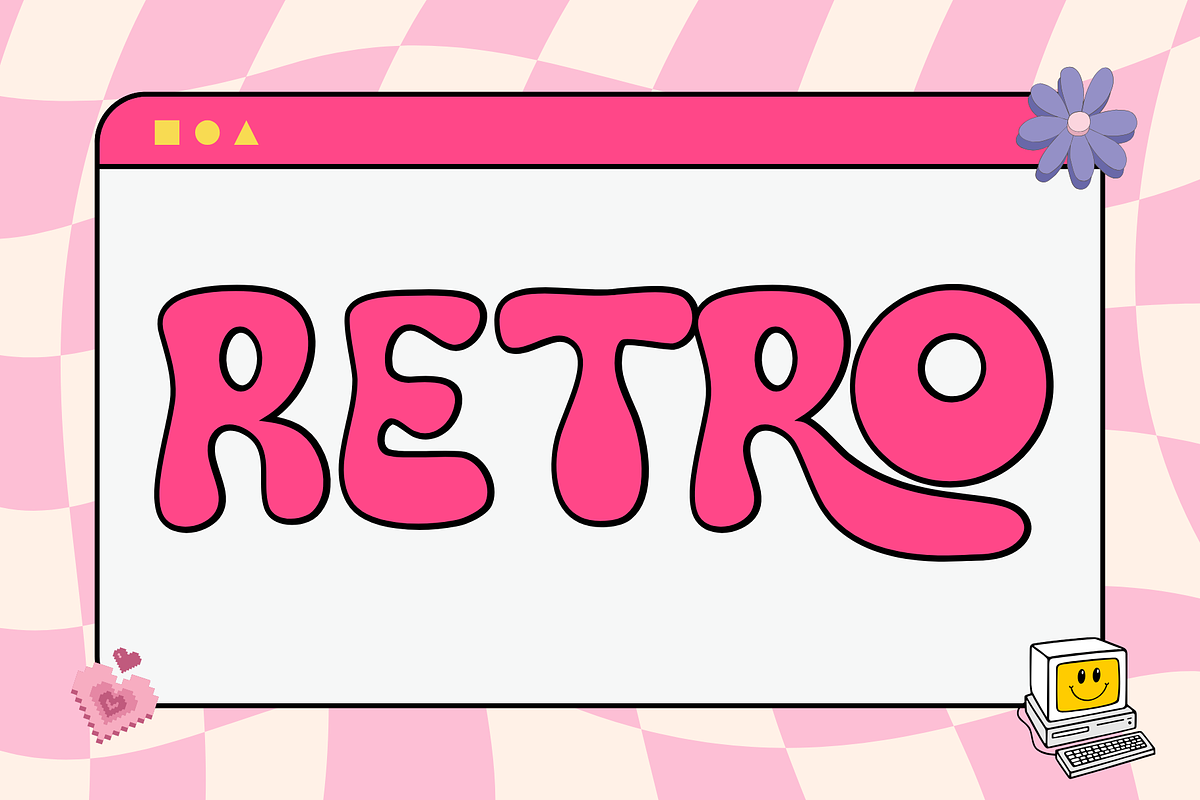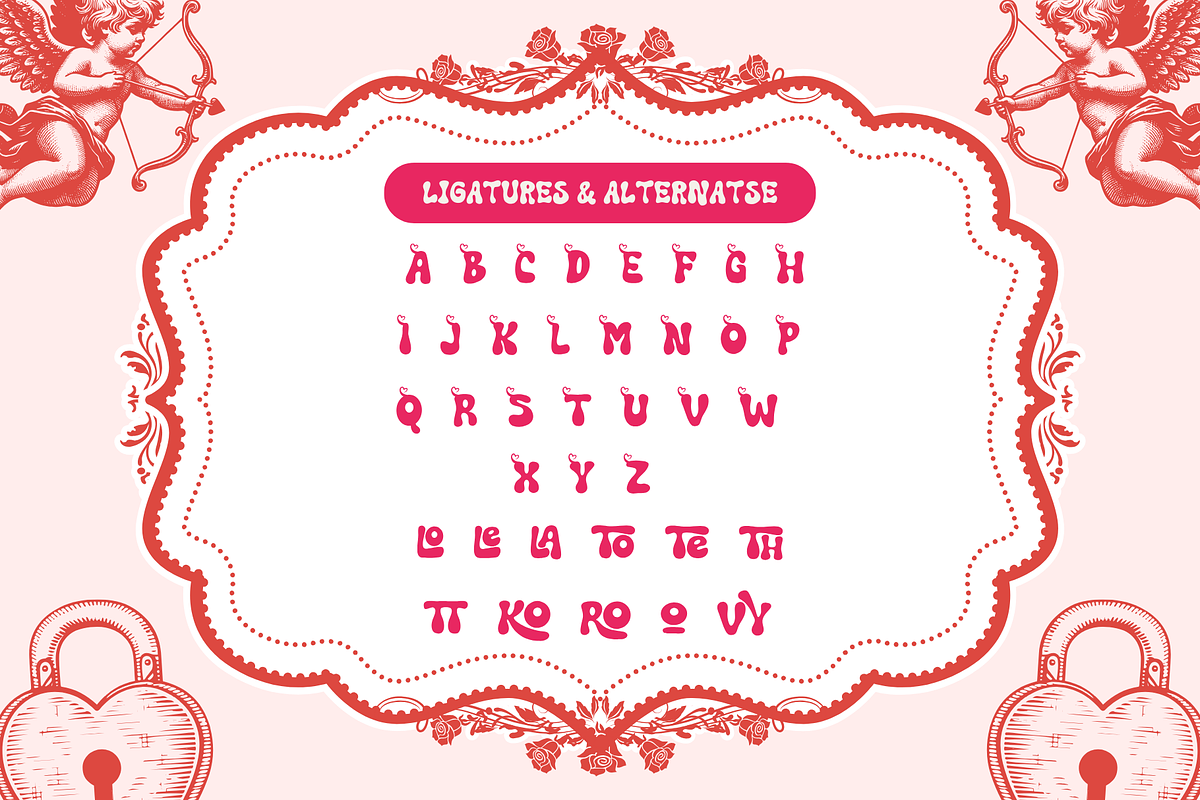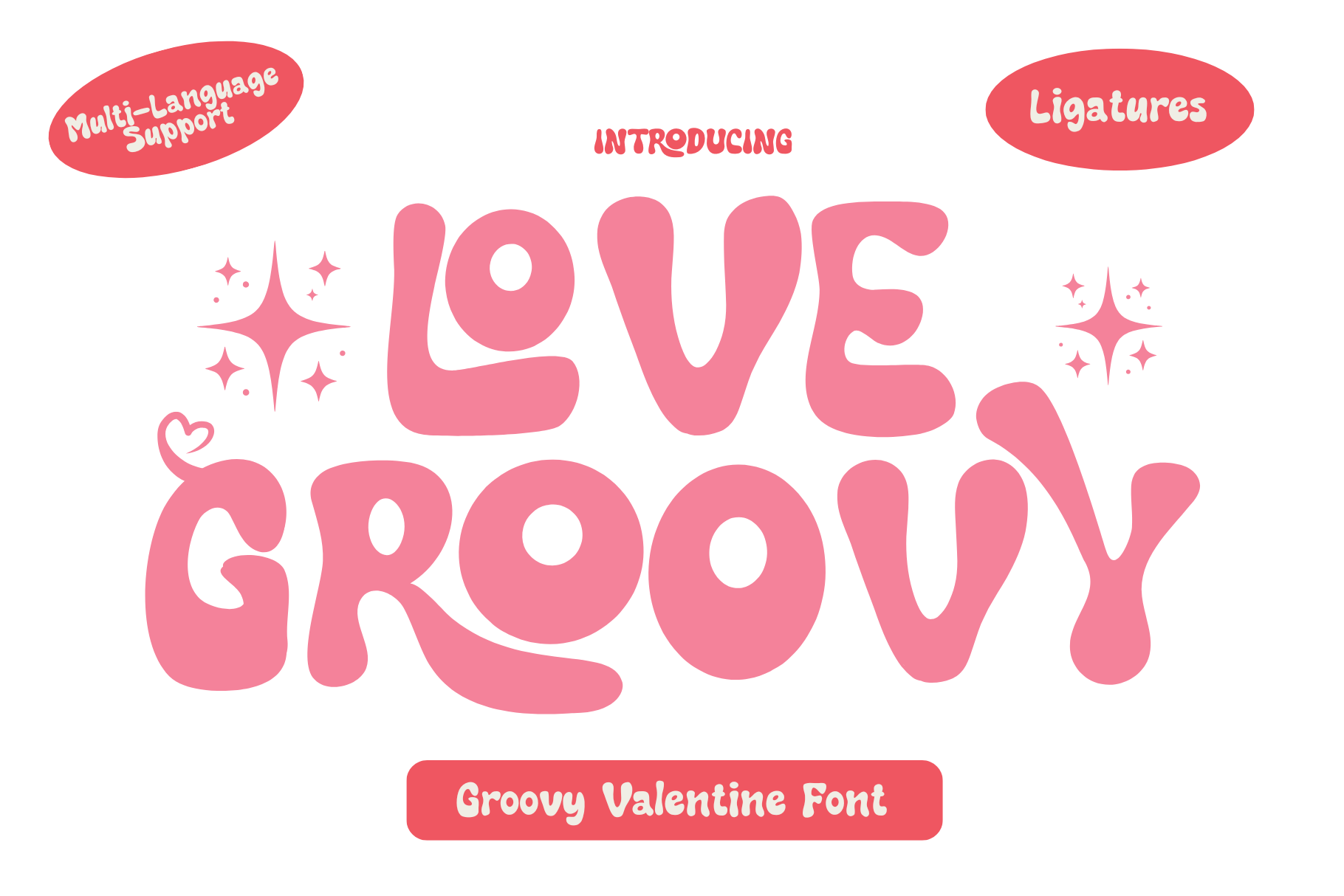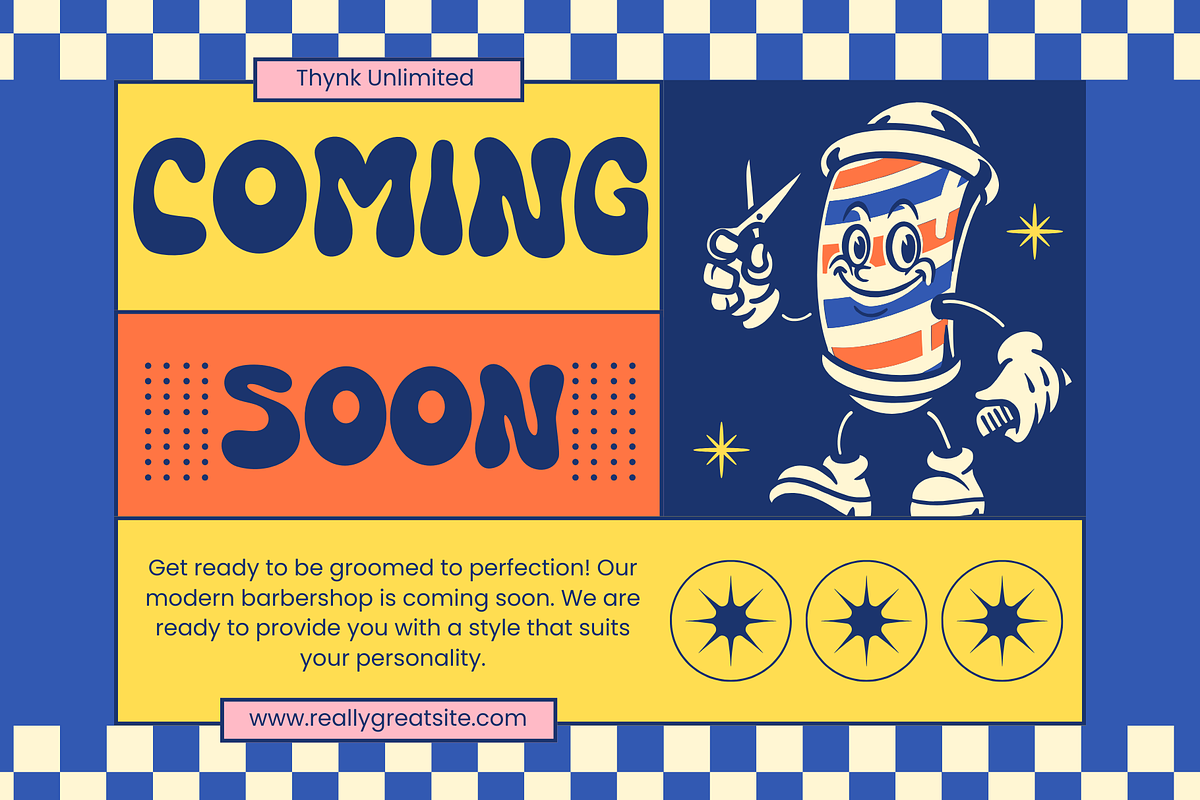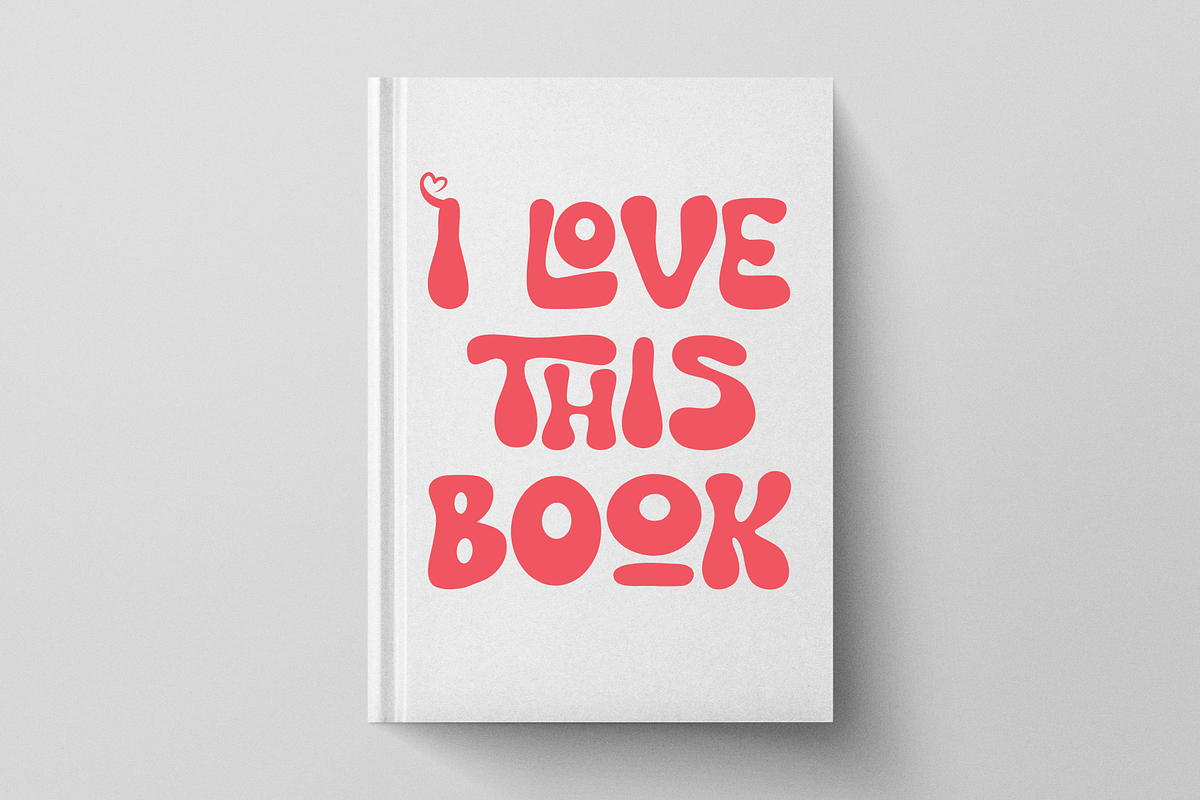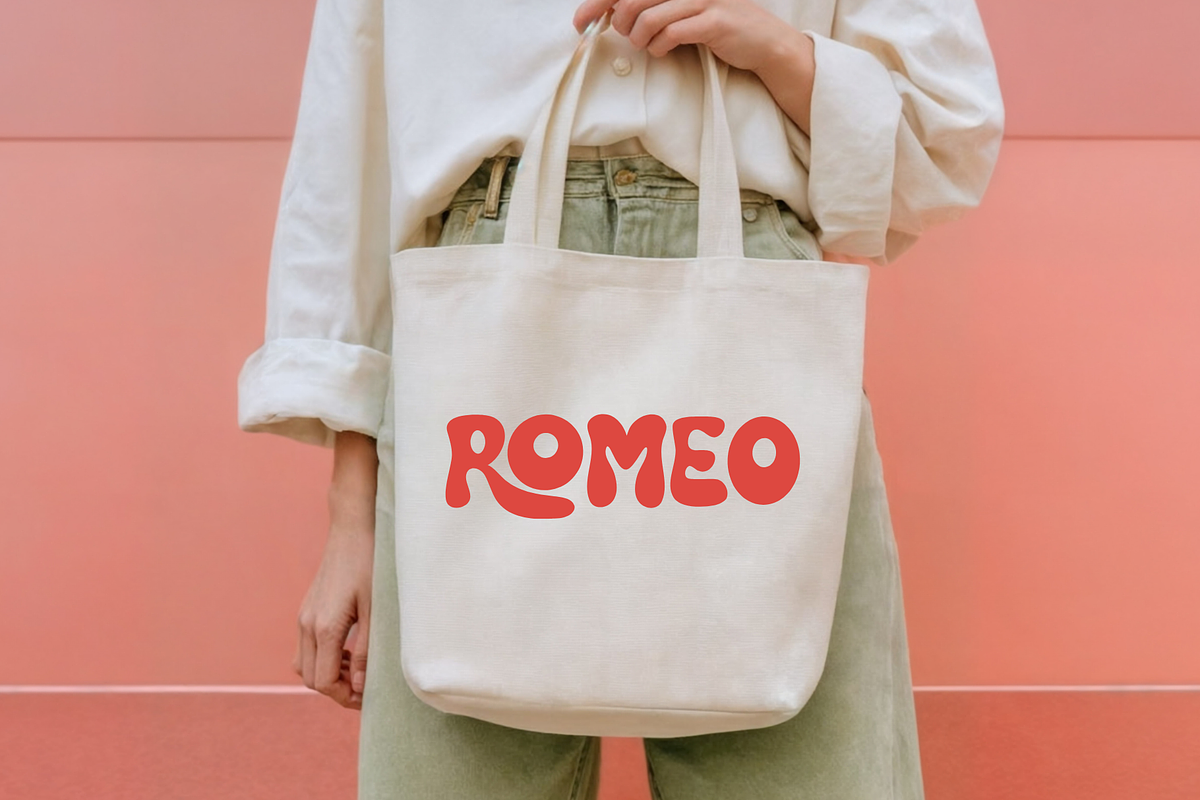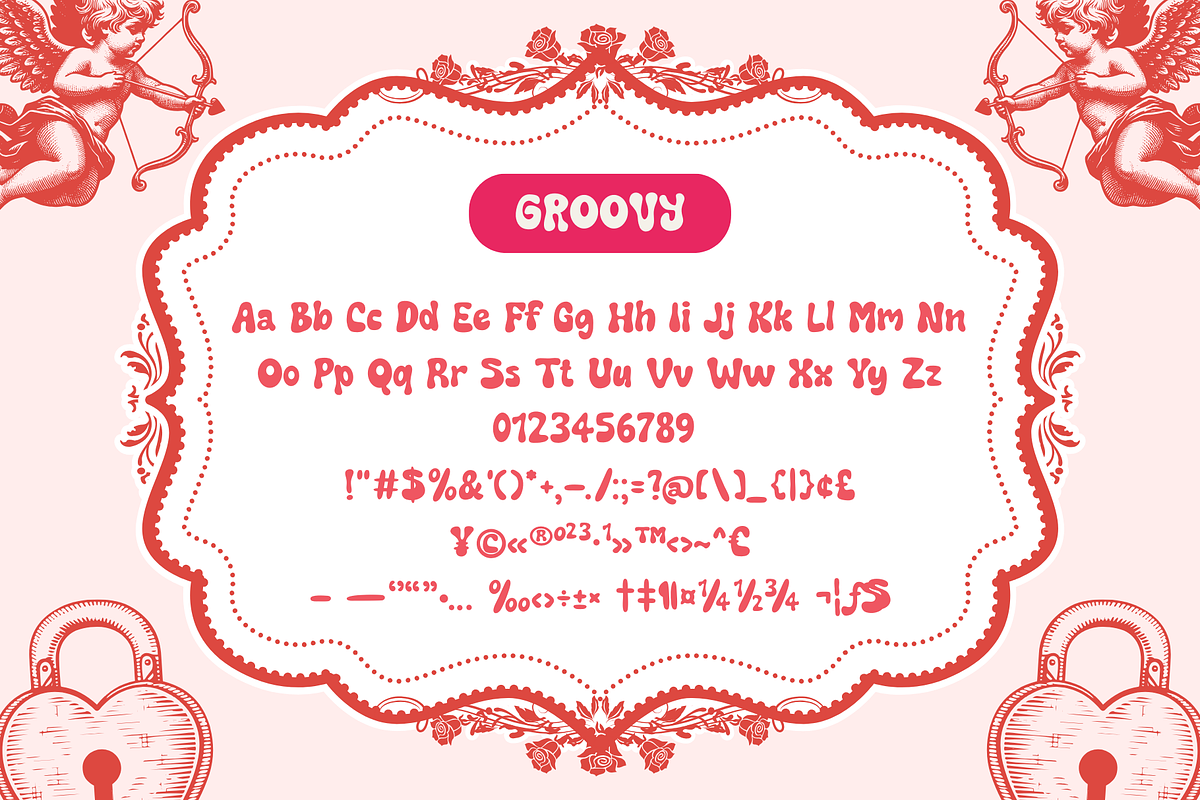
Love Groovy is a Display Font
Love Groovy is a Valentine’s Day display font. It embodies playfulness and authenticity and is the perfect choice for all your favorite projects, or even for blog posts, logos, branding, ads, invitations, greeting cards, planners, photo albums, decorations, and much more. Add it to any of your designs, and enjoy the results!